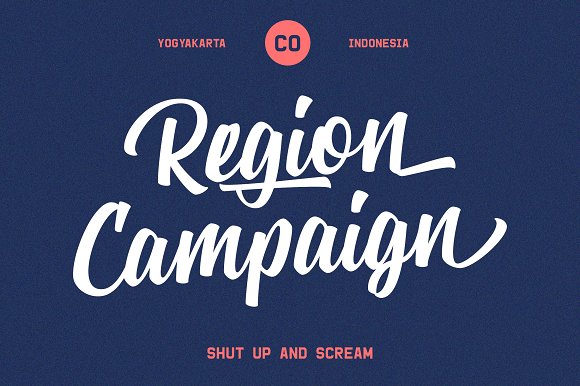
Zeichen Script Font
Say Hi to Zeichen Script!
Zeichen Script is a collective modern retro font combination. Come with 2 families, sans serif and script with uppercase and lowercase, stylistic set, alternates, multilingual, swash, etc to mix and match your design.
This font is perfect for your design, logo, label, badges, apparel design, etc. I also made a design to mix and match pairs of letters to fit your design.